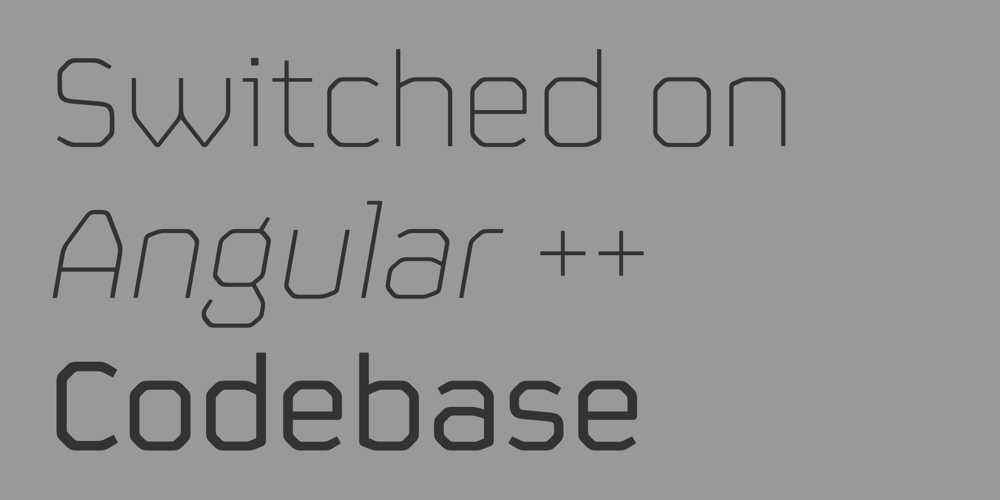
FS Sinclair Font Family was designed by Jason Smith, Phil Garnham and published by Fontsmith. FS Sinclair contains 8 styles and family package options. ZX SpectrumIn 1982, a home computer came on the market that would launch the UK IT industry. The ZX Spectrum sold five million units and spawned thousands of software titles. It was the must-have gadget for every teen.FS Sinclair is inspired by the memory of Sir Clive Sinclair’s greatest creation: the experience of entering its clunky command codes and reading its simple, grid-placed type.Smart, switched-on, great in text and display, FS Sinclair is a modern grid-based font, drawn with the Spectrum in mind and brought to life by well thought-out design. FormulaHaving completed the font for Channel 4’s brand update, the Fontsmith team defined the formula for its next font: the creative essence of the C4 work but with more structural discipline, more rigid form and a little more seriousness. The new font wouldn’t look self-consciously retro but it would reference the past and, it was hoped, influence the future.ReadabilityLike the ZX Spectrum, it took a while for the new font to do exactly what it was meant to do.Many of the early concepts by Phil Garnham and Jason Smith were too jagged – the result of an awareness of getting too close to existing fonts of the same ilk, such as Wim Crouwel’s Gridnik. Eventually, FS Sinclair evolved into a more readable, functional grid-based type design that answered Phil and Jason’s original, self-set brief.IdiosyncraticThere’s a technological, systems feel to FS Sinclair but ultimately, humans are in charge. The lowercase “a”, “n”, “m” and “r” have clean-cut “ears”, and the square-ish design is softened by round joins on the inside of the letterforms.The idiosyncratic design of letters such as “g”, “j”, “k”, “v”, “w” and “y” bring the design up to date. This is a modular font with character, and a range of weights that allow varied application.